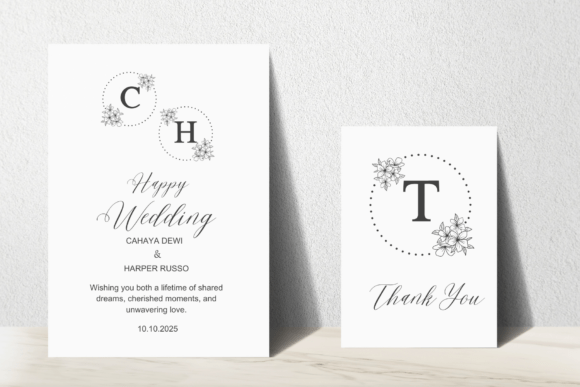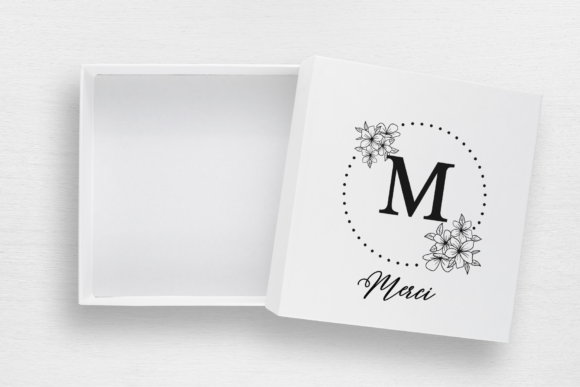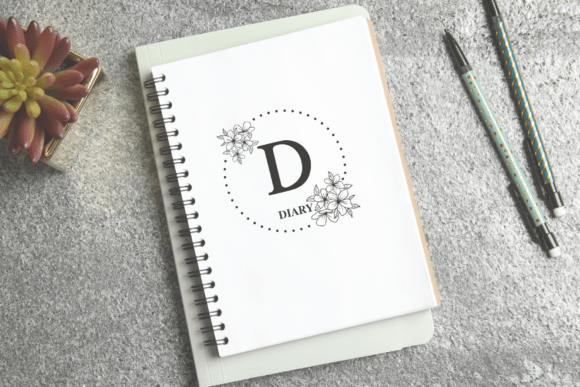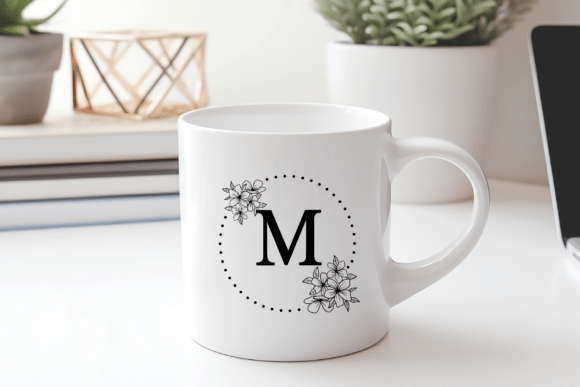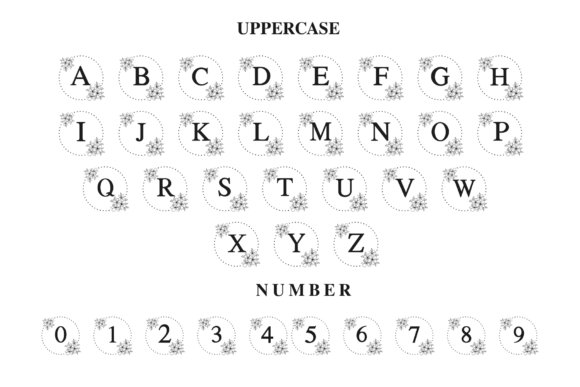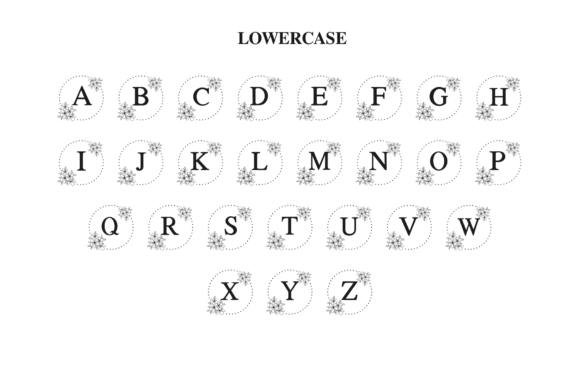
Introduction to Premium Floral Monogram Font Font
Fonts play a crucial role in design, and the Premium Floral Monogram Font font is a typeface that brings both character and versatility to any project. Whether you’re working on a branding project, a website, or a print design, the Premium Floral Monogram Font font offers a unique style that can elevate your work.
Premium Floral Monogram is an elegant font designed for special occasions.
It features decorative letters inside a beautiful flower frame, making it perfect for invitations and wedding cards This font adds a touch of charm and sophistication to any celebration.
Key Features of Premium Floral Monogram Font Font
Why Choose Premium Floral Monogram Font Font?
The Premium Floral Monogram Font font is more than just a typeface – it’s a design tool that helps you communicate your message with style and clarity. Its unique character set and versatile design make it suitable for a wide range of applications, from elegant invitations to bold headlines.
With its carefully crafted letterforms and balanced proportions, the Premium Floral Monogram Font font ensures readability and visual appeal across all mediums.
What makes Premium Floral Monogram Font font special?
The Premium Floral Monogram Font font stands out with its unique design, exceptional readability, and versatility across various design applications.